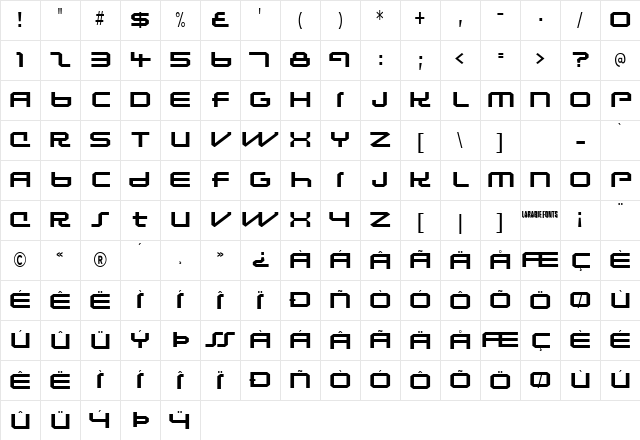
Lunasol Sequence Regular Free Font
Lunasol Sequence Regular
Design Context for Lunasol Sequence
Lunasol Sequence is a composed and adaptable typeface that performs quietly and consistently across a wide range of design contexts.